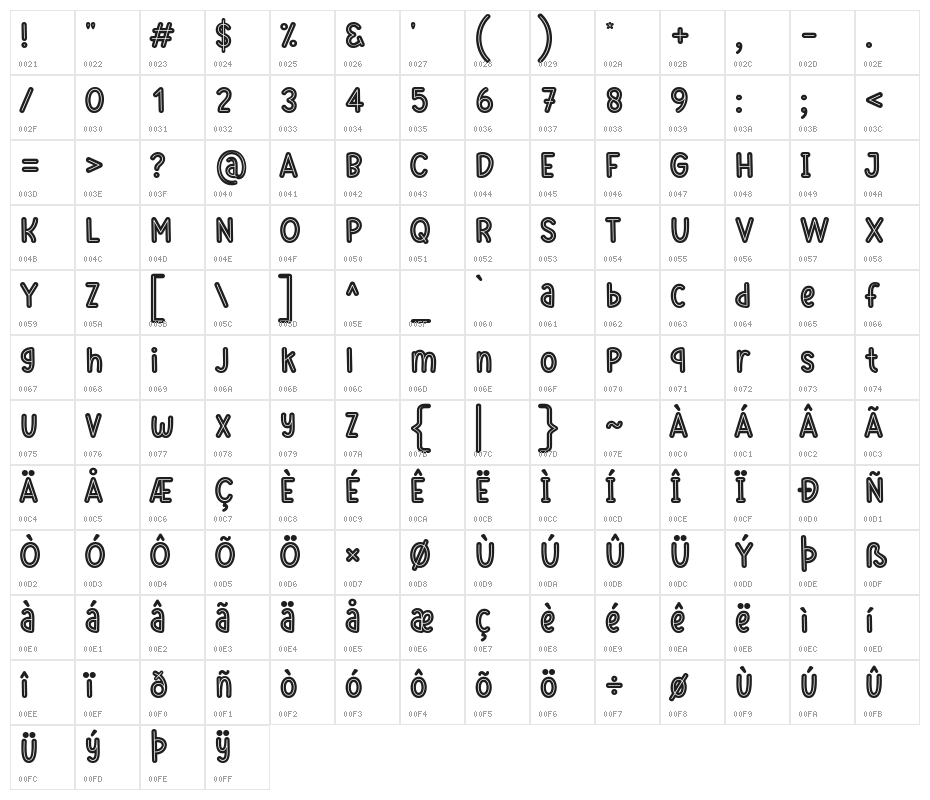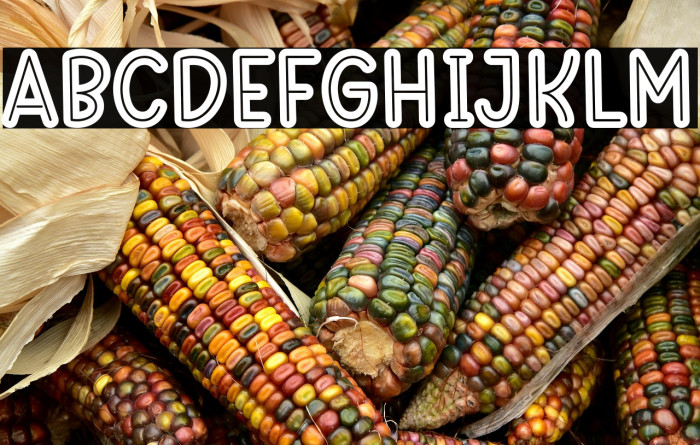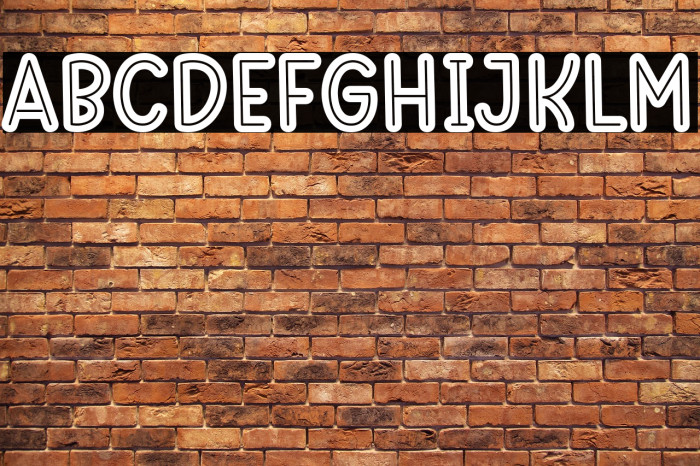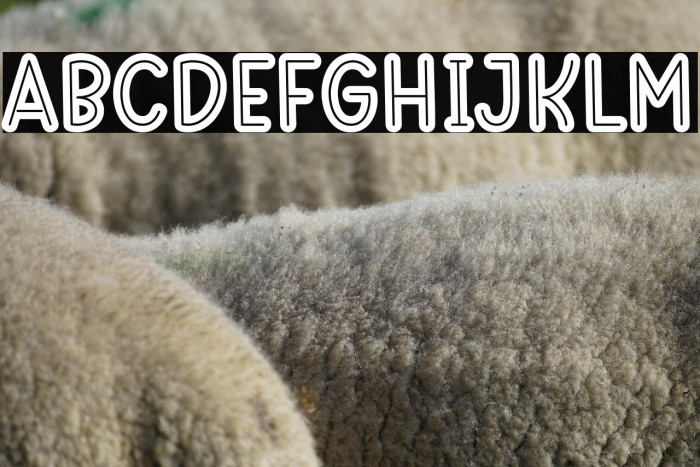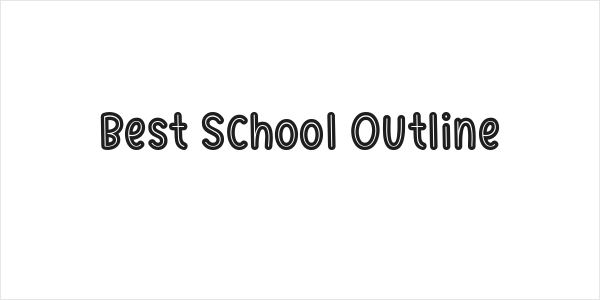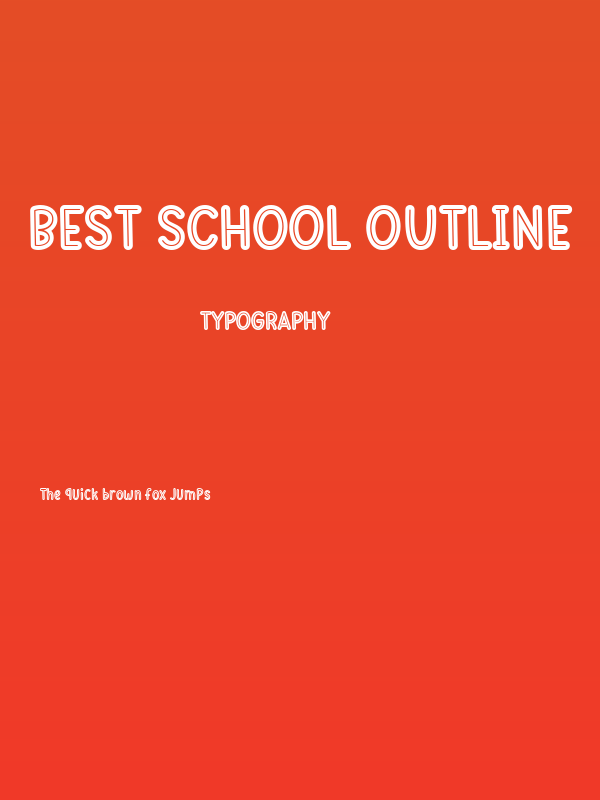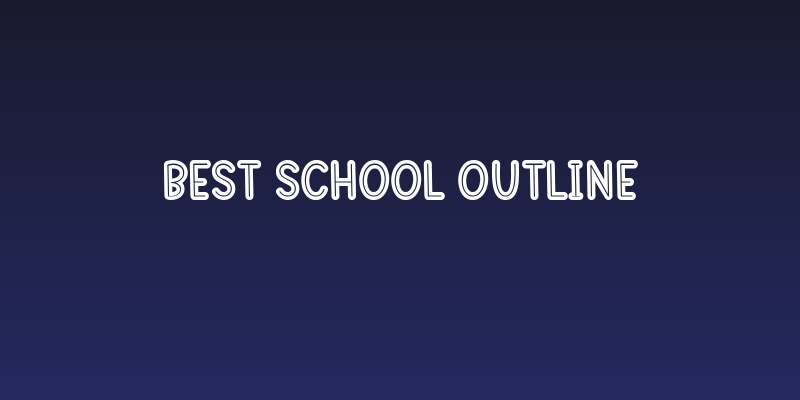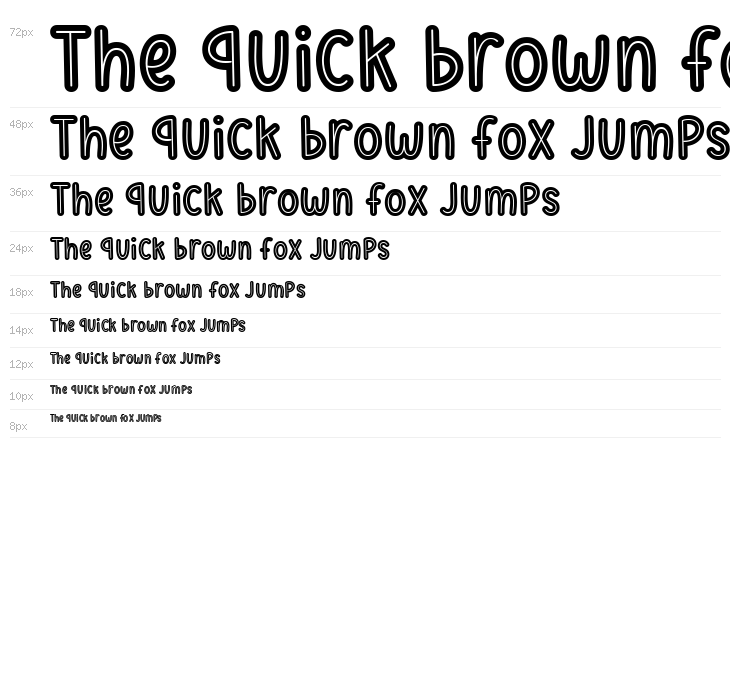
Best School Outline Font
Best School Outline Description
This playful and bold font features an outlined style that gives each character a distinct and eye-catching appearance. The letters are rounded and have a uniform thickness, creating a cohesive and friendly look. The uppercase and lowercase letters are well-proportioned, with a slight whimsical touch that adds personality. The numerals and special characters maintain the same outlined style, ensuring consistency throughout. This font is perfect for projects that require a fun and approachable aesthetic, making it ideal for children's materials, posters, and creative branding.
| Overall Style | Playful, Fun |
| Proposed Projects | Ideal for children's books, playful posters, educational materials, and creative branding. |